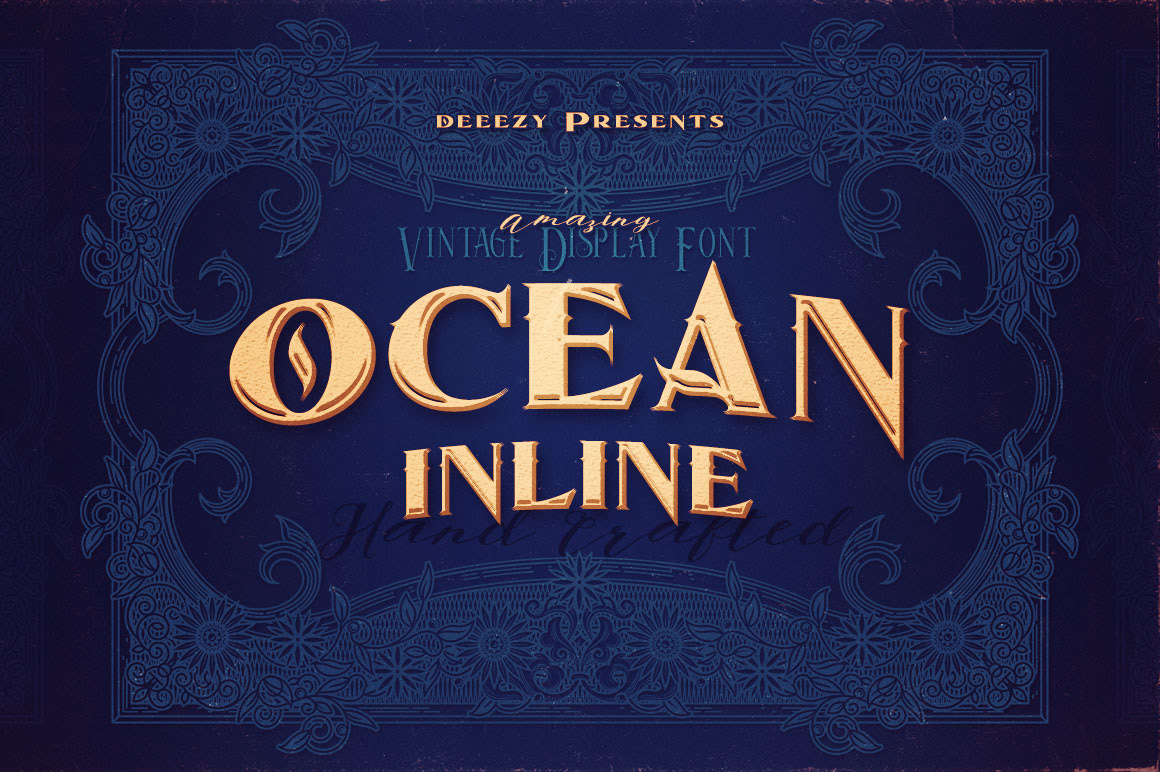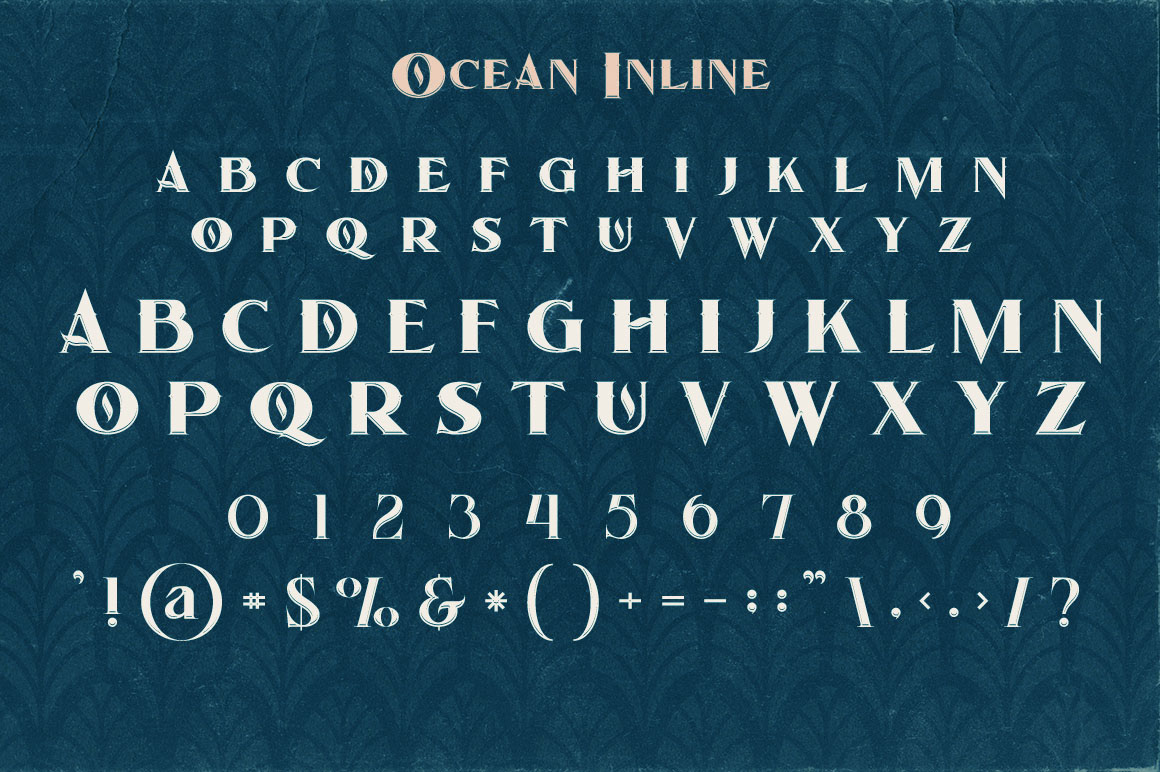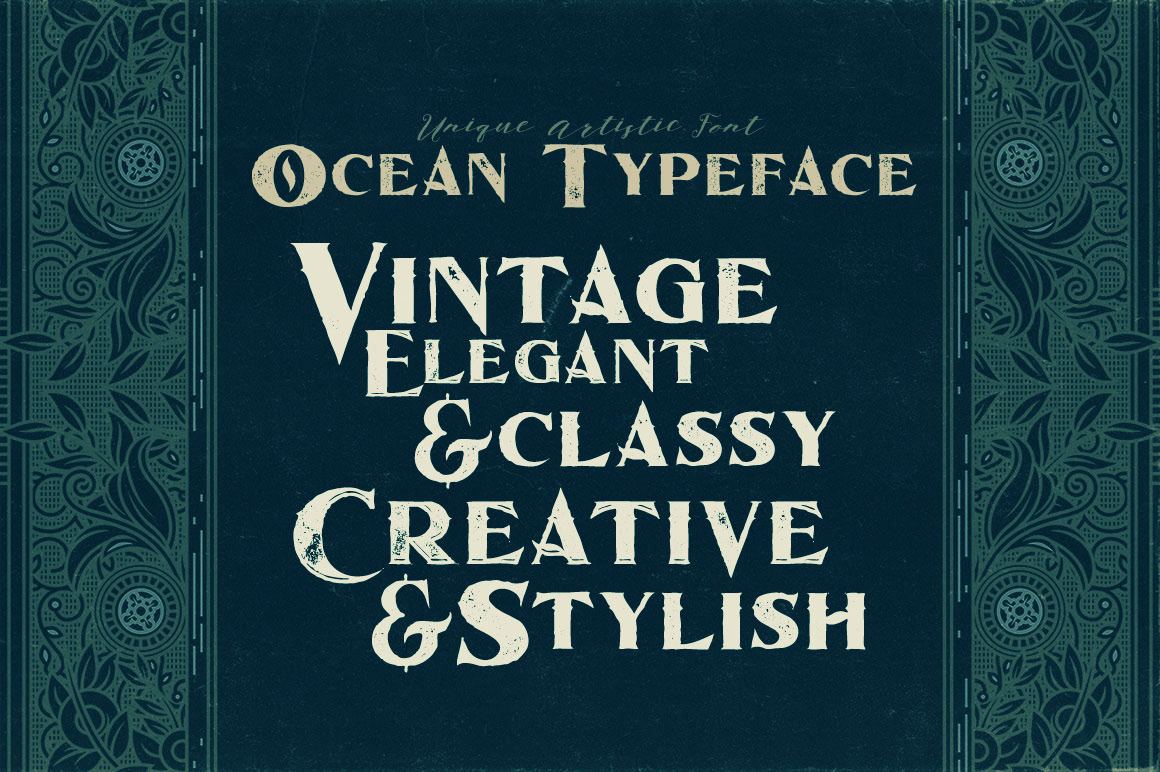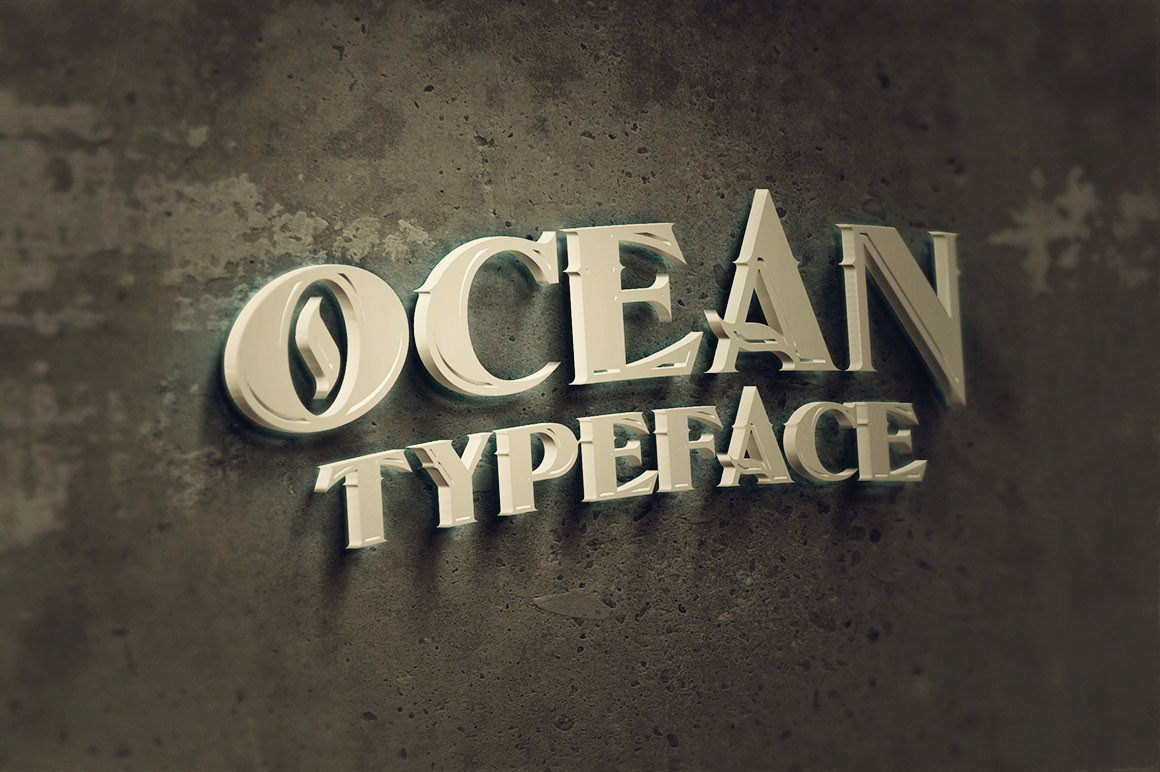
If you want to impress your typeface toolbox, grab hold of this freebie today! Ocean Inline was created by Deeezy.com and it’s free for personal and commercial use. Great choice for all sorts of printed projects – logos, T-shirts, prints, magazine covers, posters, and more.